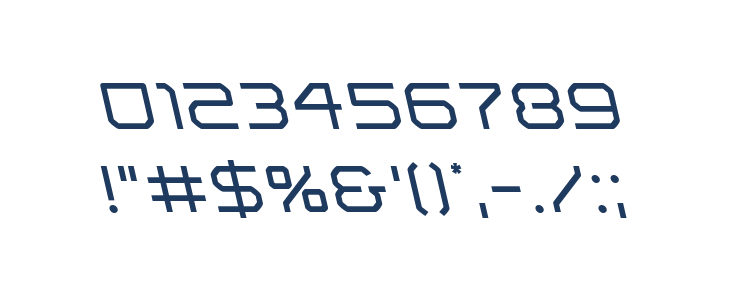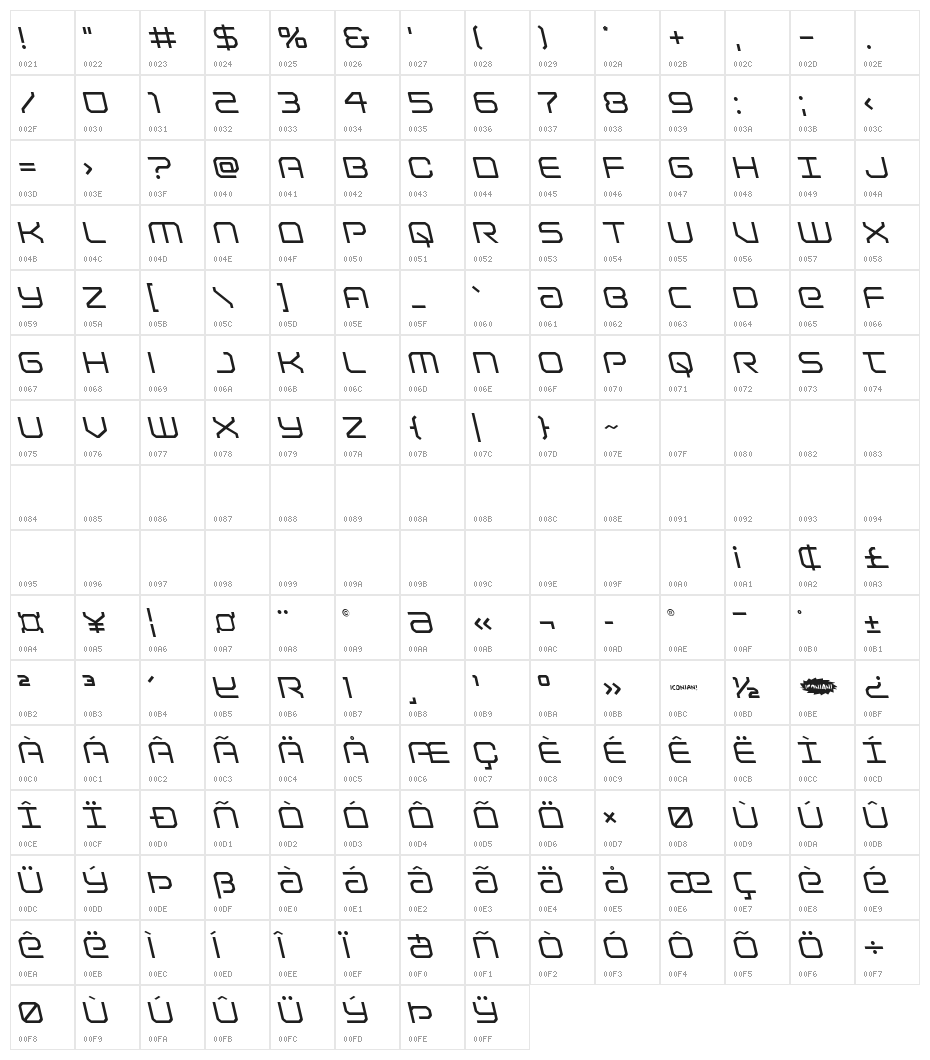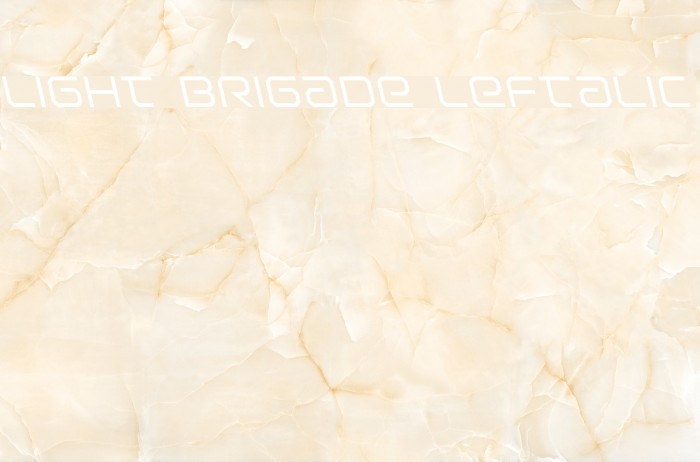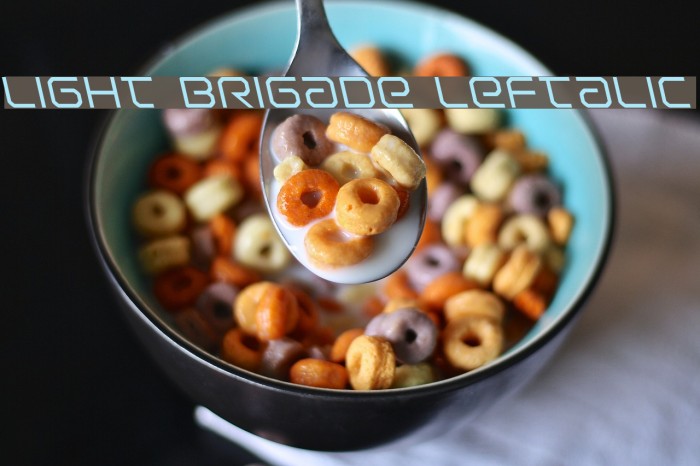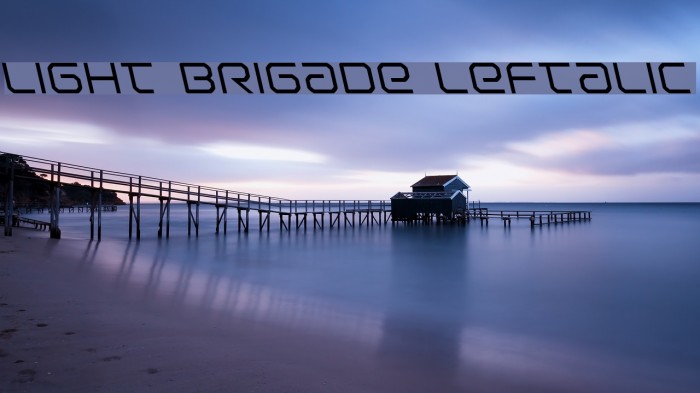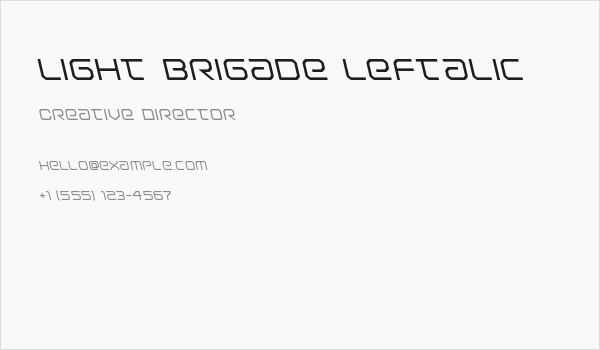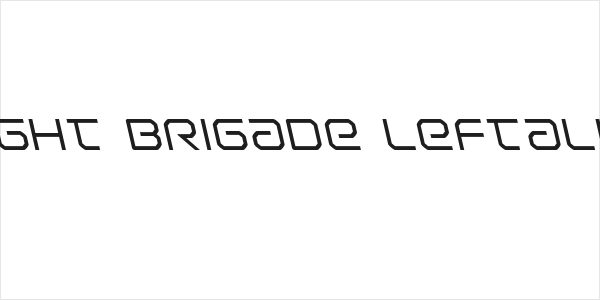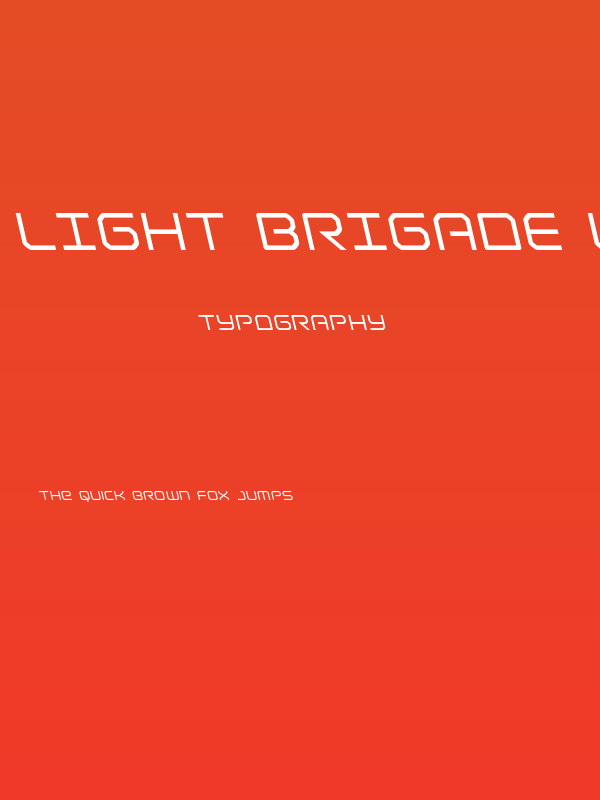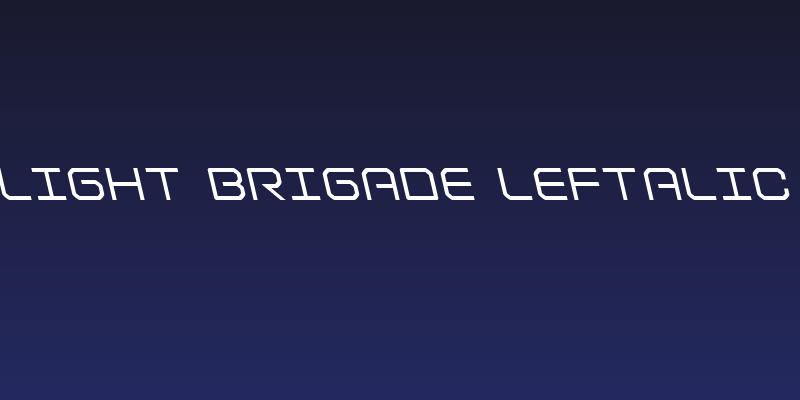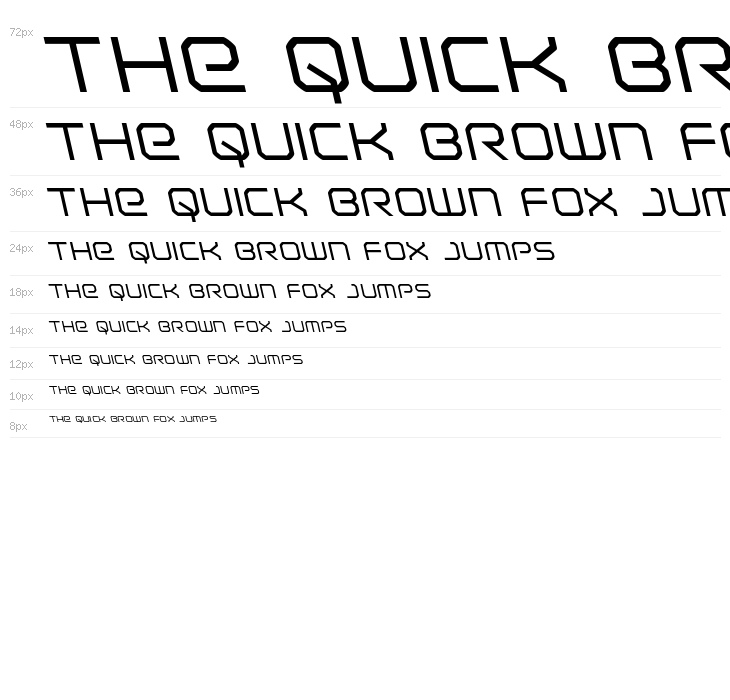
Light Brigade Leftalic Font
Light Brigade Leftalic Description
This font features a geometric and angular design with a futuristic aesthetic. The characters are constructed with straight lines and sharp angles, giving it a technical and modern appearance. The uppercase and lowercase letters maintain a consistent style, with a slight slant that adds a dynamic feel. The numerals and special characters follow the same design principles, ensuring uniformity across all glyphs. The font's clean lines and structured form make it suitable for projects that require a contemporary and edgy look.
Proposed ProjectsIdeal for technology branding, sci-fi themed designs, video game interfaces, and modern advertising.